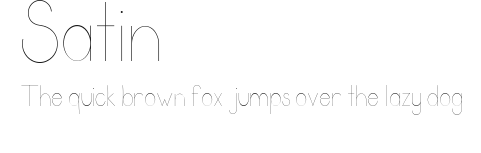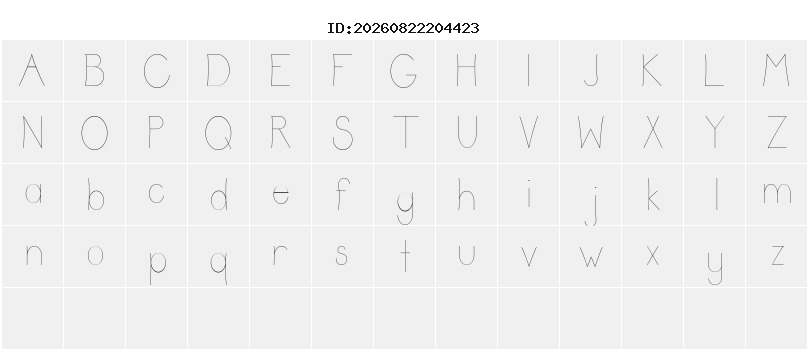
• Font Name: Satin
• Font Style: Satin
• Font ID: 1.000;pyrs;Satin
• Full Font Name: Satin
• PostScript Name: Satin
• Character Count: 54
About Satin.ttf
Satin.ttf is a modern, elegant sans-serif font designed for ultimate readability and visual harmony. Perfect for branding, headlines, web design, and print materials.